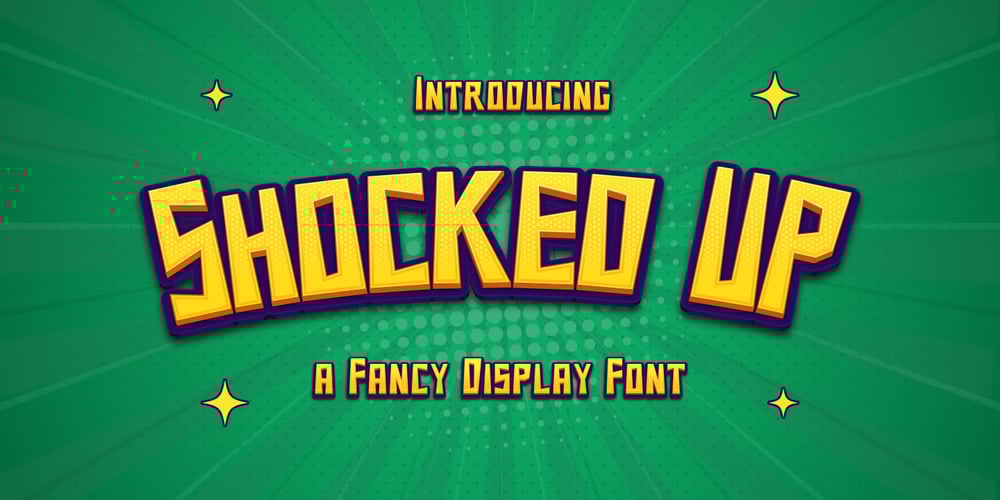
Shocked Up Font Family was designed by Hilmius Akbar and published by Typefactory. Shocked Up contains 1 styles and family package options. Shocked Up is a cute and fancy display font.It embodies playfulness and authenticity and is the perfect choice for any children activity, game font, party invitation, or school project.Add this chunky lettered font to your designs and notice how it makes them come alive!